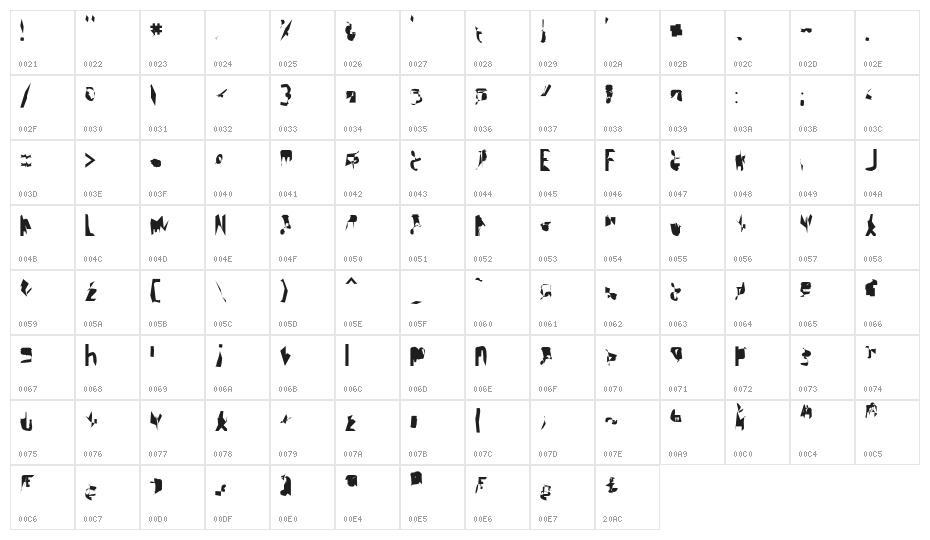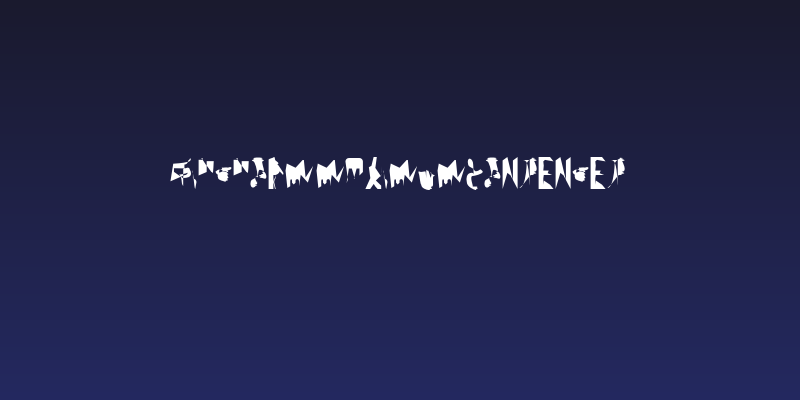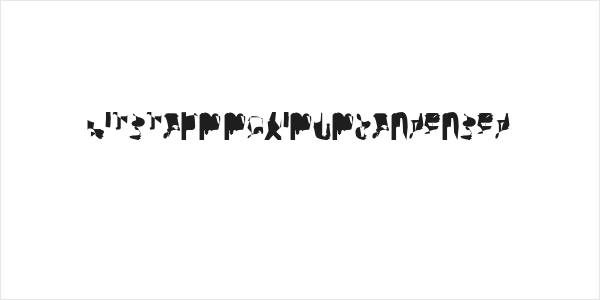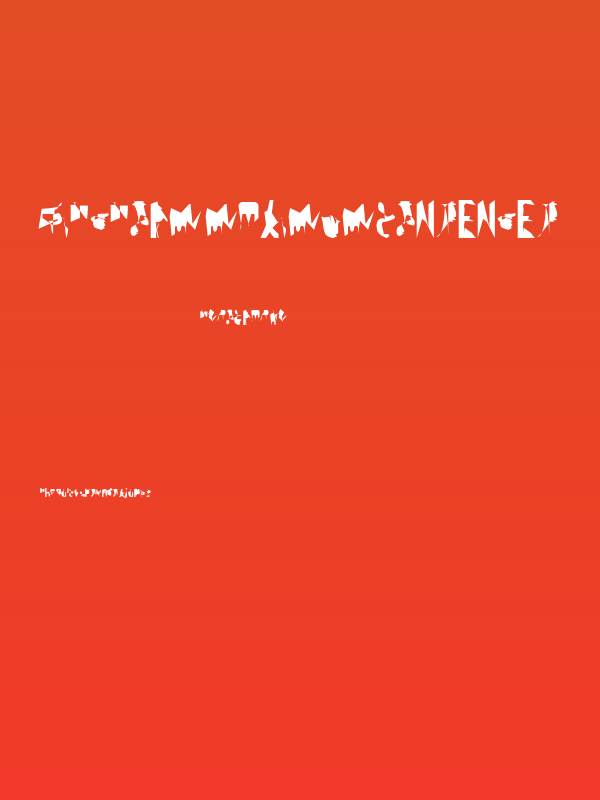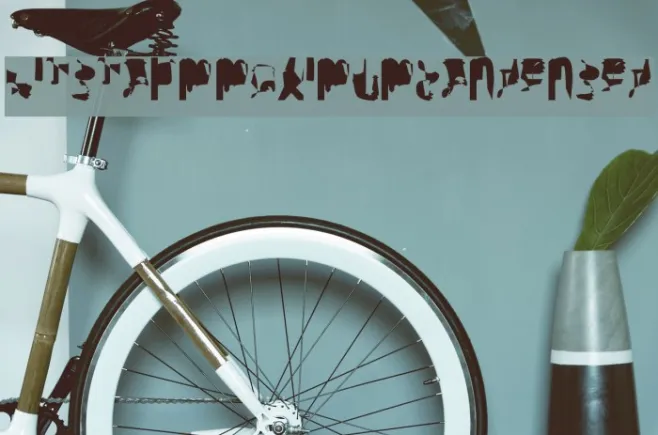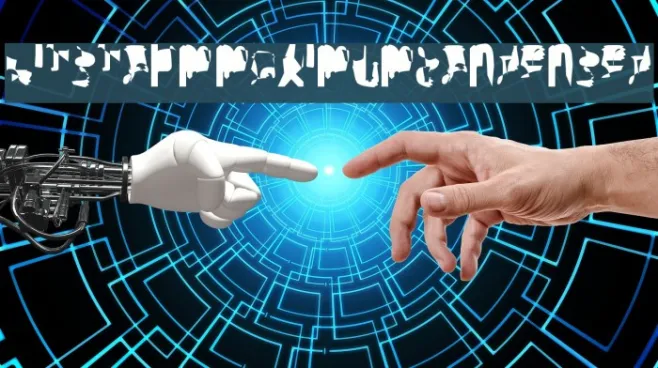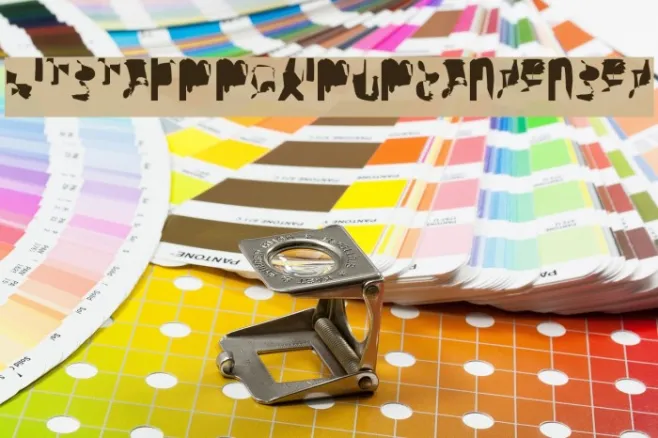
bitstorm maximumcondensed Font
bitstorm maximumcondensed Description
This font features a highly abstract and fragmented design, with each character appearing as if it has been shattered or distorted. The letters are bold and condensed, with sharp angles and irregular shapes that create a chaotic yet intriguing visual effect. The overall appearance is edgy and modern, making it suitable for projects that aim to capture attention with a unique and unconventional style. The font's fragmented nature may challenge readability in longer texts but can be highly effective in artistic or decorative contexts.
| Use Case | Headlines, Logos, Artistic projects |
| Proposed Projects | Ideal for album covers, posters, and branding projects that require a bold, artistic statement. |